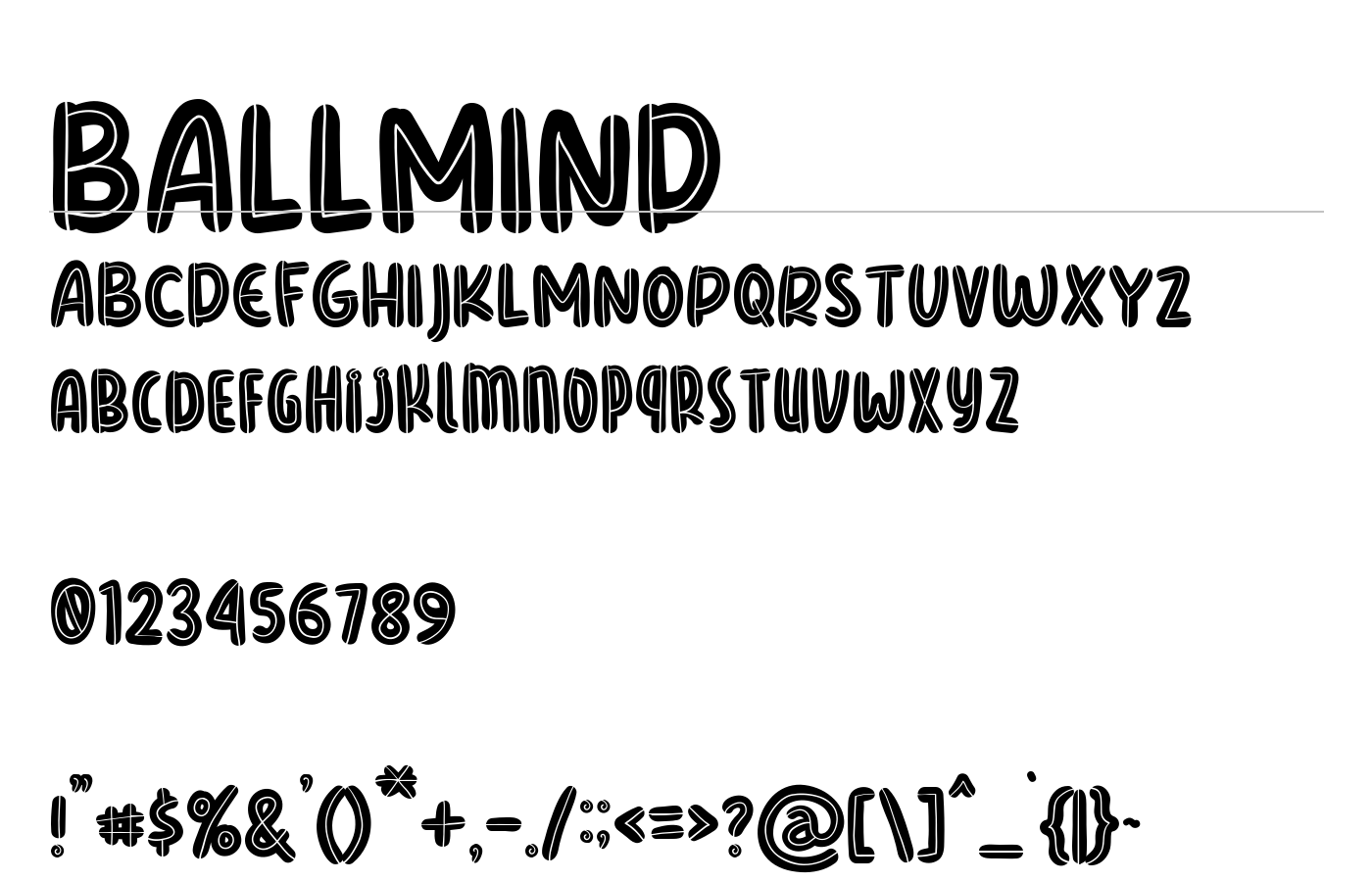
BALLMIND is a playful, hand-drawn sans serif font with bold, rounded strokes and a slightly condensed, casual style. Its lively, layered letterforms and clear uppercase letters give it a fun and approachable personality, making it perfect for creative projects, children’s materials, and vibrant branding where a friendly, energetic feel is desired. This font works best in headlines, packaging, and any design that benefits from a bold, informal, and cheerful touch.
BALLMIND Font
About BALLMIND Font